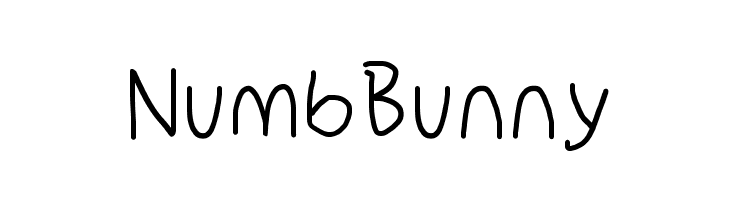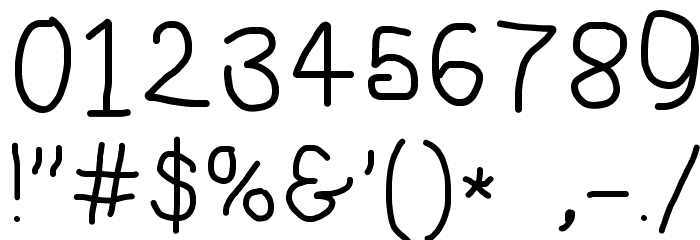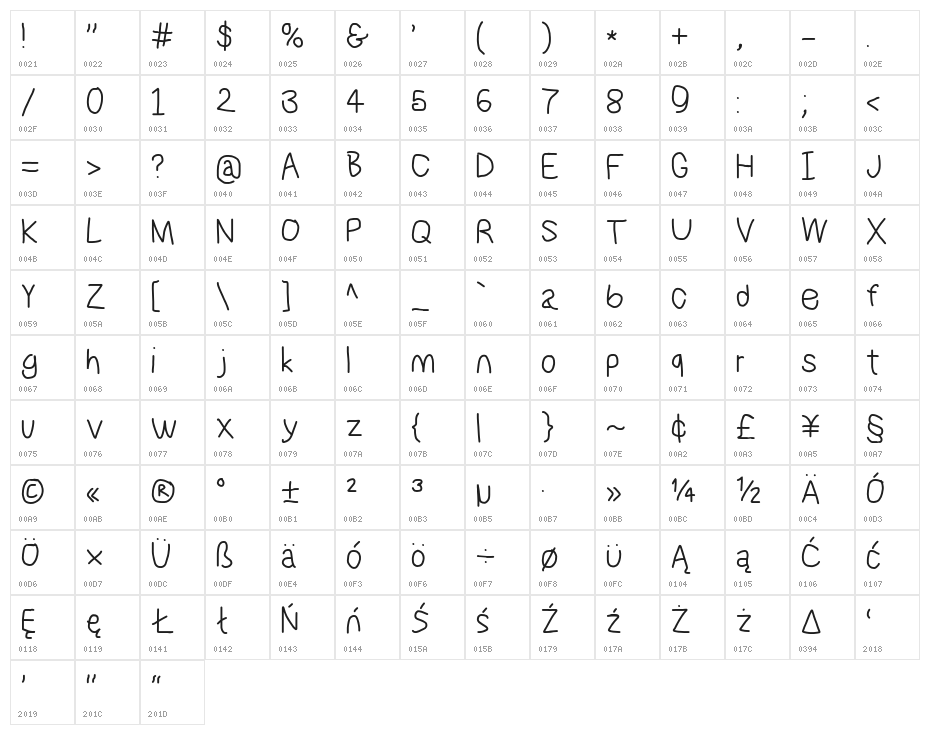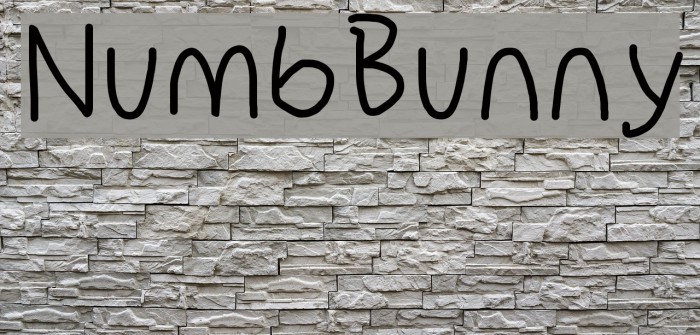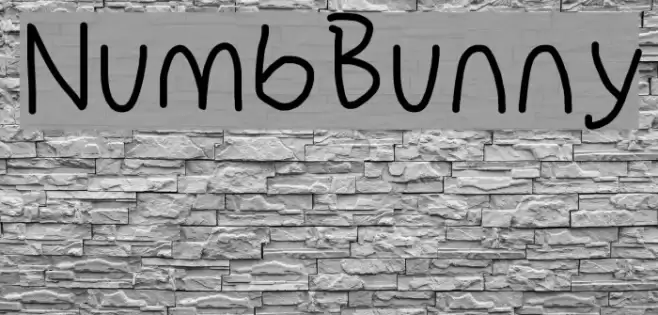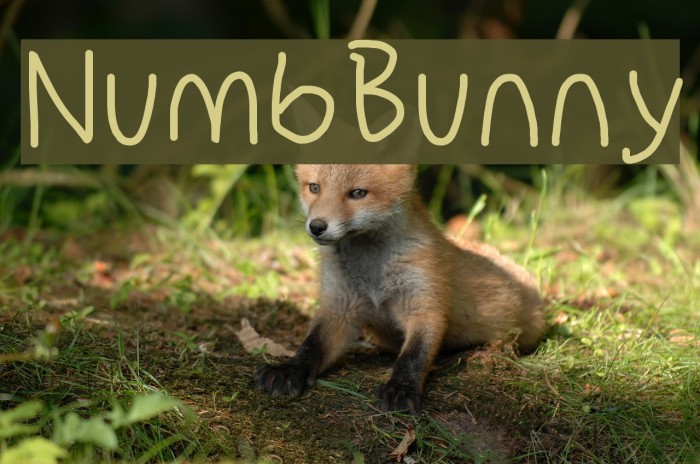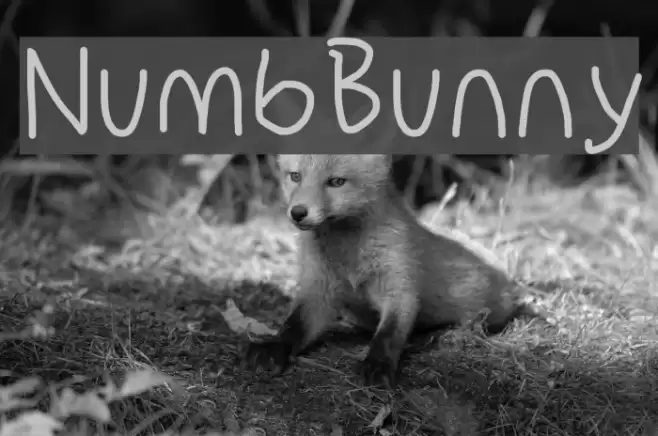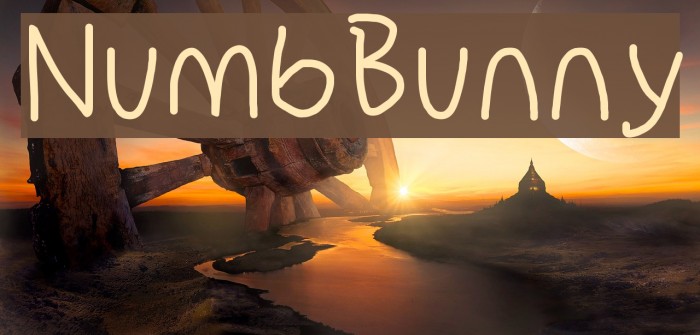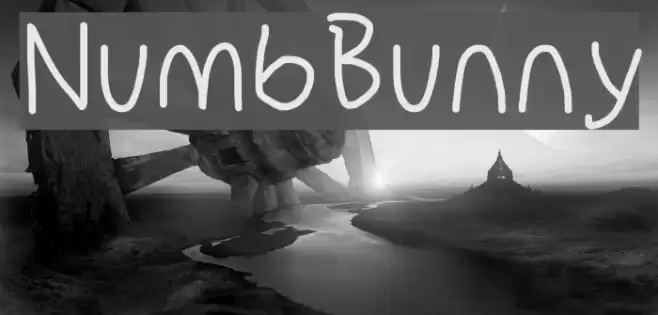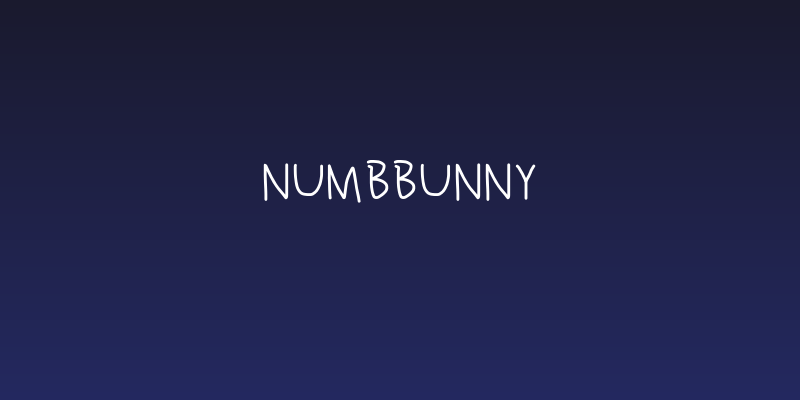
NumbBunny Font
This playful and whimsical font features a handwritten style with a casual, informal appearance. The characters are slightly irregular, adding a charming and approachable feel. The uppercase letters are bold and rounded, while the lowercase letters maintain a consistent flow with gentle curves. Numbers and special characters follow the same playful theme, making the font versatile for various creative projects. The overall design is friendly and engaging, perfect for capturing attention in a fun and lighthearted way.
Overall StyleCasual, Playful
Use CaseHeadlines, Logos, Informal Text
Proposed ProjectsIdeal for children's books, greeting cards, playful branding, and casual invitations.